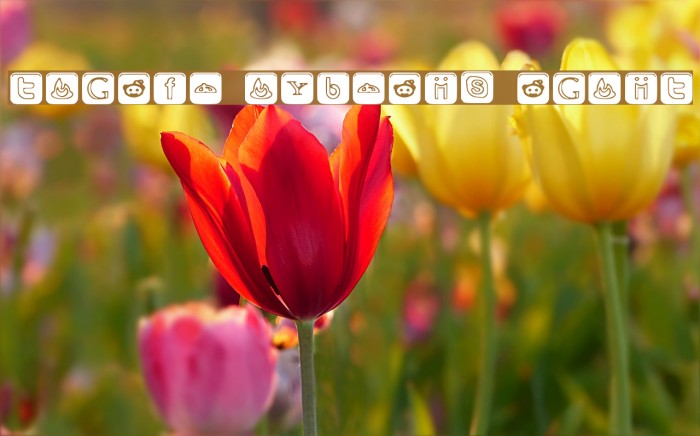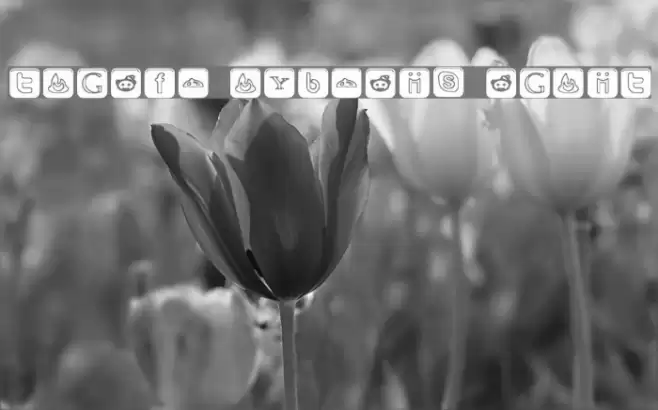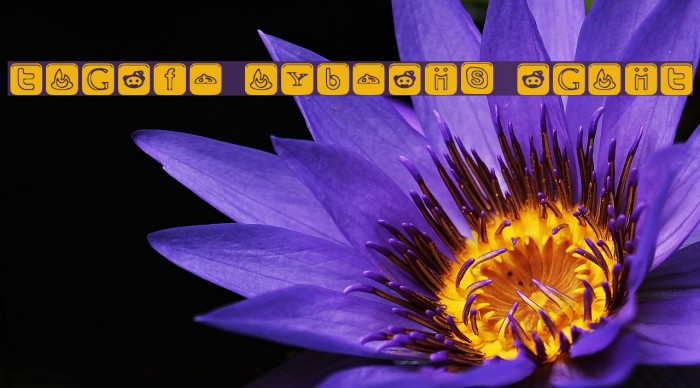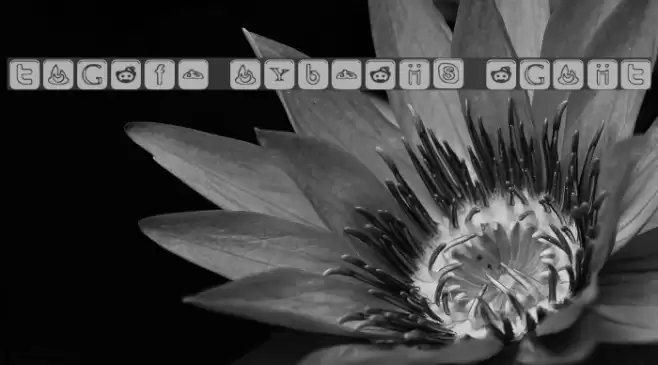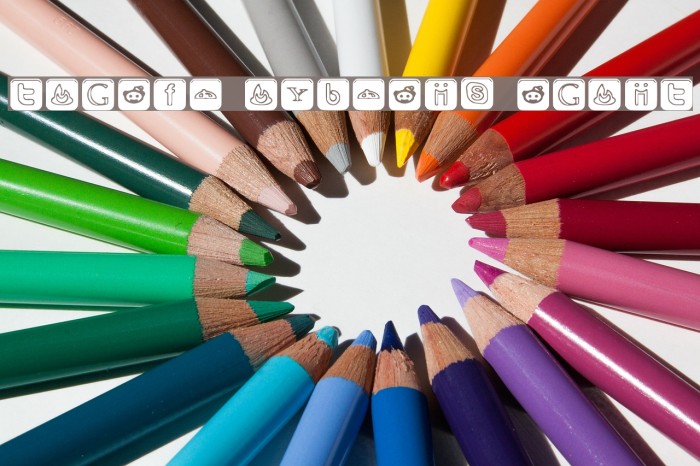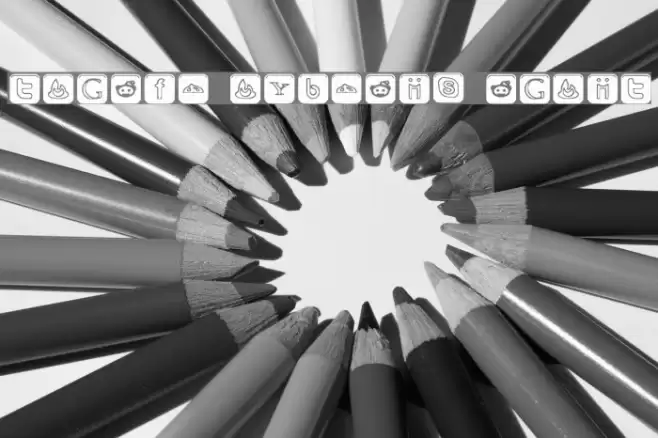
SOCIAL OUTLINE ICONS Font
SOCIAL OUTLINE ICONS Description
A set of outlined social media and web-related icons, each placed within rounded square backgrounds. The icons are minimalist, using thin, consistent line weights to depict recognizable symbols for various platforms and actions.
Minimalist outlined social media and web icons in rounded squares from Uncategorized fonts.
- Proposed Projects: Websites, mobile apps, social media graphics, UI/UX mockups, presentations.
- Overall Style: Modern, Minimalist, Decorative
- Use Case: Icons, UI elements, Social media links